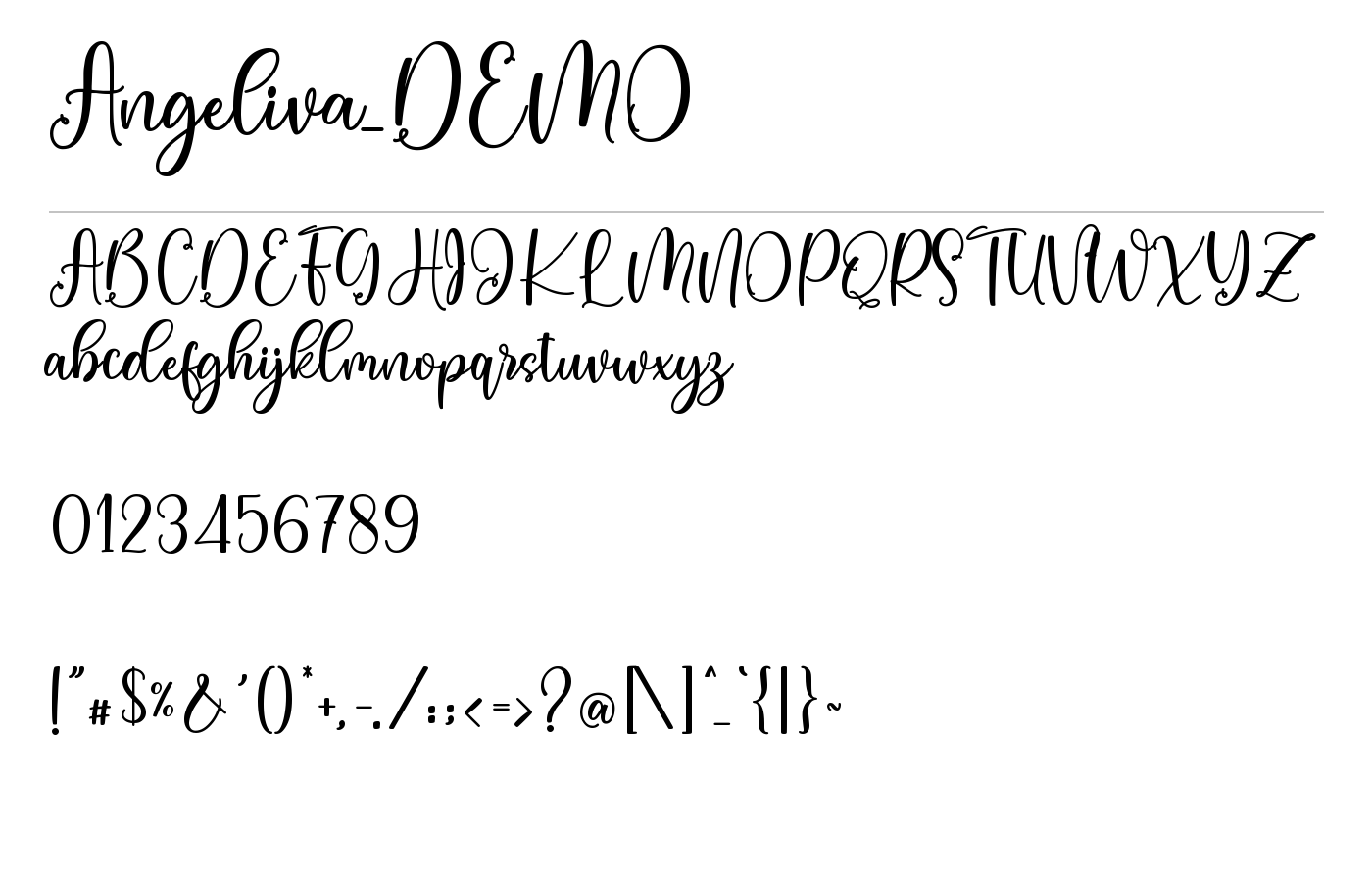
Angeliva_DEMO is a graceful script font with elegant, flowing strokes and playful flourishes that add a charming personality to its smooth letterforms. Its slender weight and moderate contrast make it perfect for greeting cards, invitations, and branding projects that seek a sophisticated yet approachable look. This font shines in decorative uses where a touch of creativity and warmth is desired.
Angeliva_DEMO Font
About Angeliva_DEMO Font